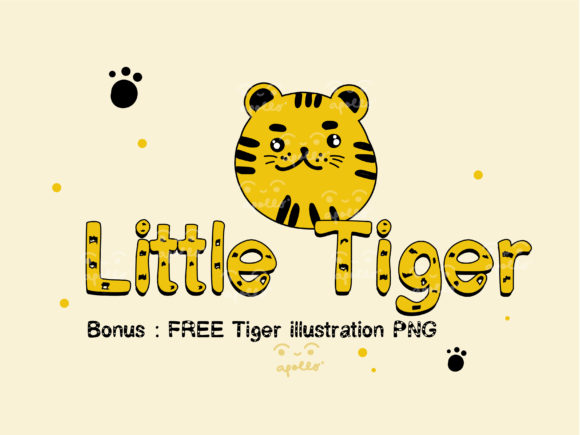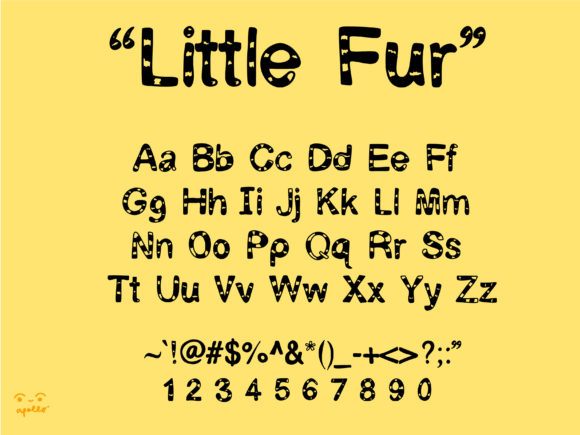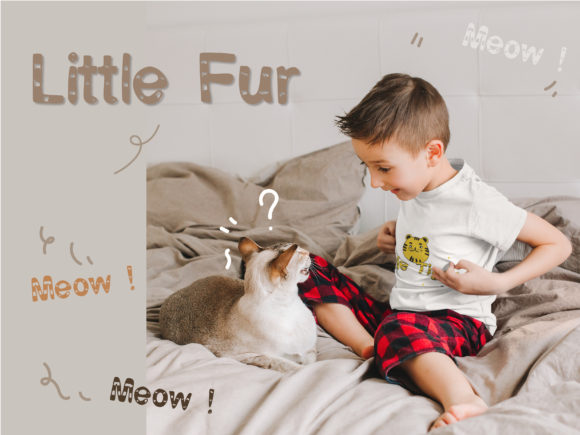
Introduction to Little Fur Font Font
Fonts play a crucial role in design, and the Little Fur Font font is a typeface that brings both character and versatility to any project. Whether you’re working on a branding project, a website, or a print design, the Little Fur Font font offers a unique style that can elevate your work.
Little fur is an adorable decorative font suitable for children-related designs.
Its letters are hand-drawn and perfect for printable items, cards, or anything else related to fluffy things Get creative, and use this cute font on your favorite products.
Key Features of Little Fur Font Font
Why Choose Little Fur Font Font?
The Little Fur Font font is more than just a typeface – it’s a design tool that helps you communicate your message with style and clarity. Its unique character set and versatile design make it suitable for a wide range of applications, from elegant invitations to bold headlines.
With its carefully crafted letterforms and balanced proportions, the Little Fur Font font ensures readability and visual appeal across all mediums.
What makes Little Fur Font font special?
The Little Fur Font font stands out with its unique design, exceptional readability, and versatility across various design applications.